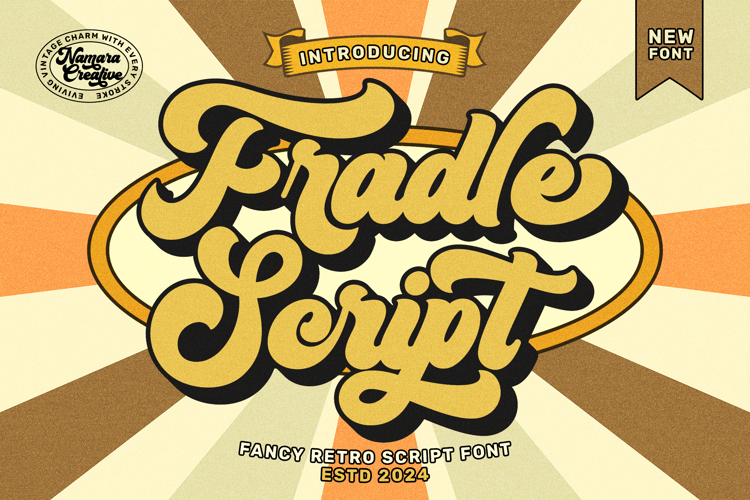
Fradle Script Font
Script Style
Retro bold script font that captures the vintage charm and boldness. It brings a nostalgic appeal that resonates with audiences looking for vintage authenticity and modern allure.